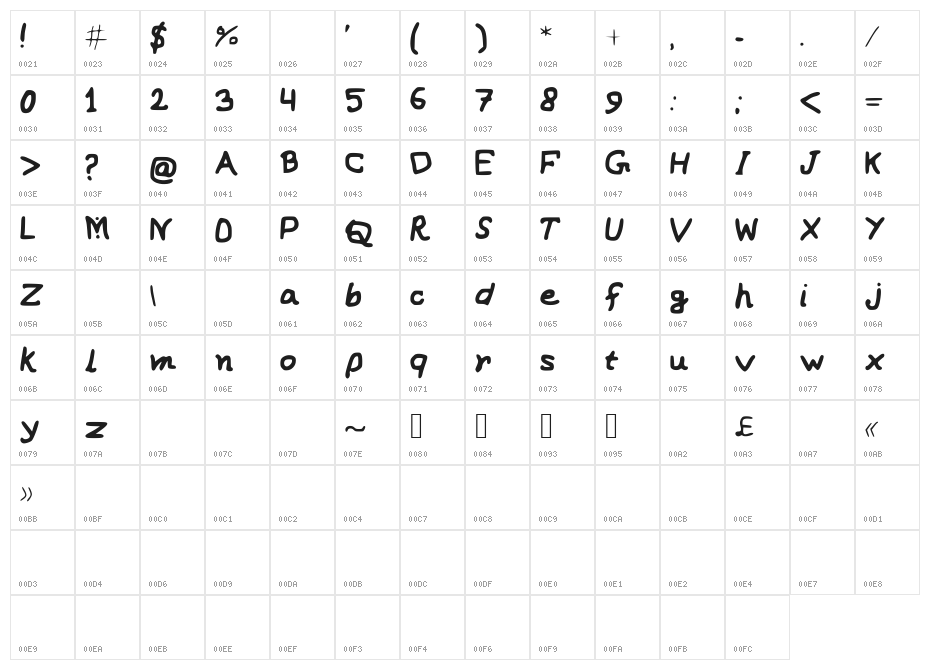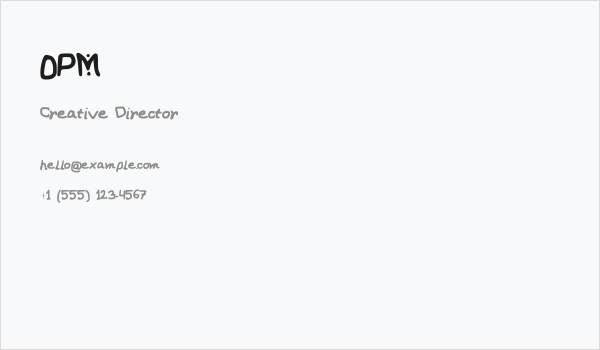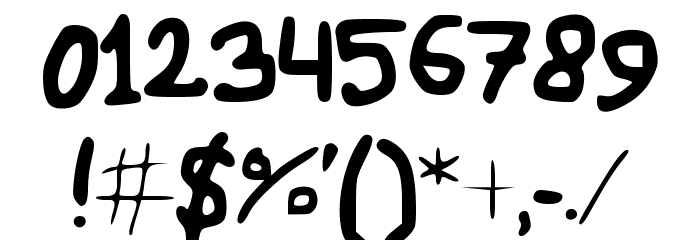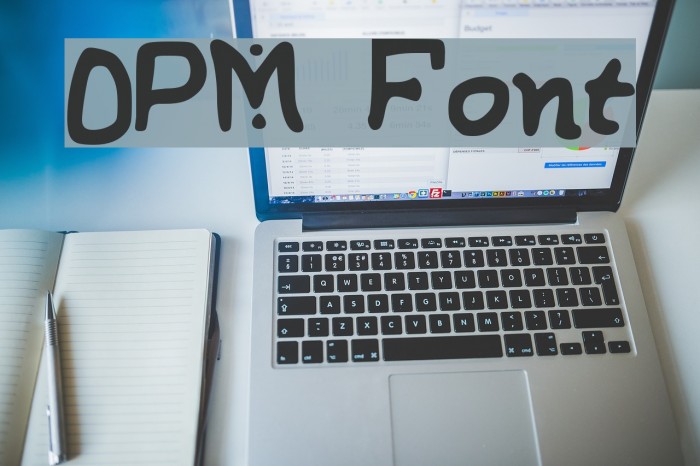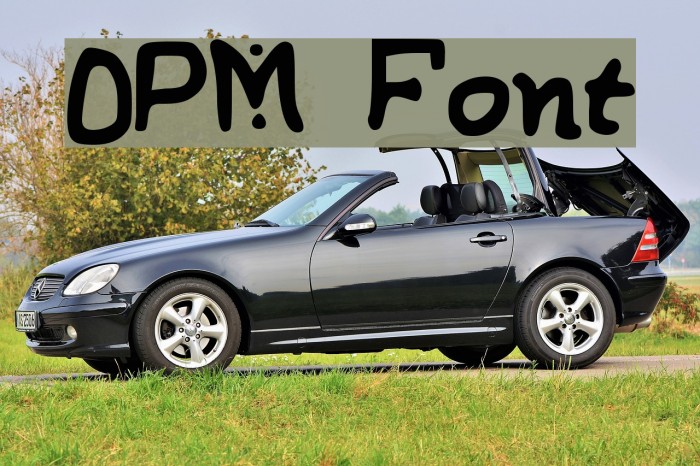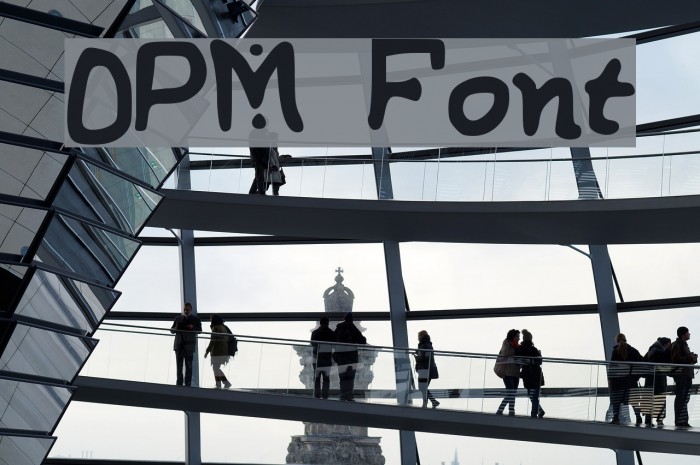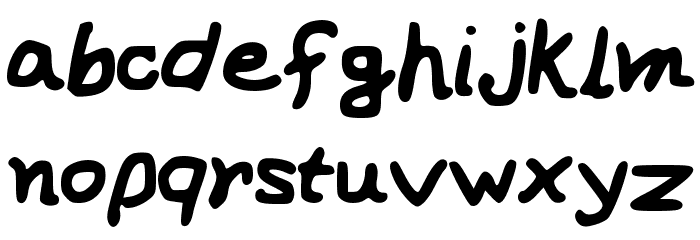
OPM Font
OPM Description
This font features a playful and informal style, characterized by its hand-drawn appearance. The letters have a slightly uneven and organic form, giving them a casual and approachable feel. The strokes are bold and rounded, with a consistent thickness throughout, which adds to the font's friendly and whimsical nature. The characters are well-spaced, maintaining readability while preserving the font's unique charm. This style is reminiscent of handwriting, making it suitable for projects that require a personal touch. The numerals and special characters follow the same design principles, ensuring a cohesive look across all elements.
| Proposed Projects | Ideal for children's books, greeting cards, playful branding, and informal invitations. |